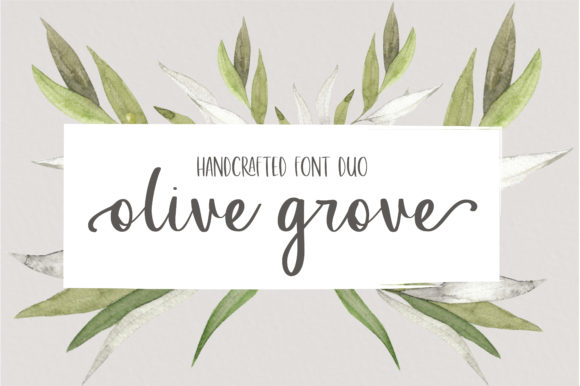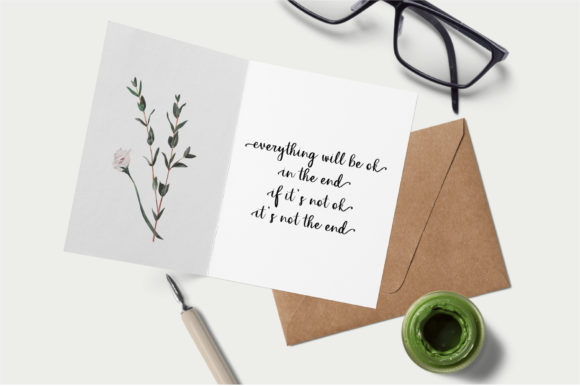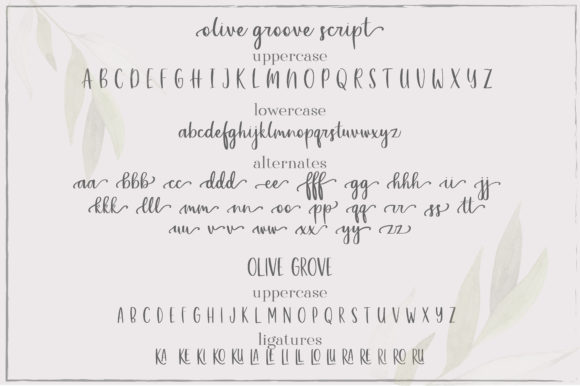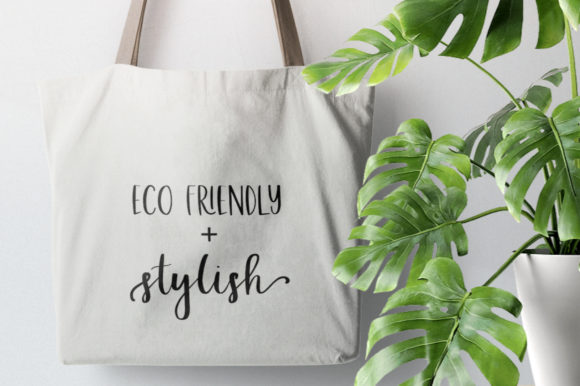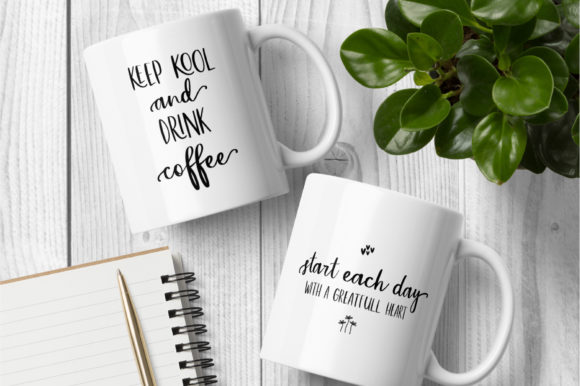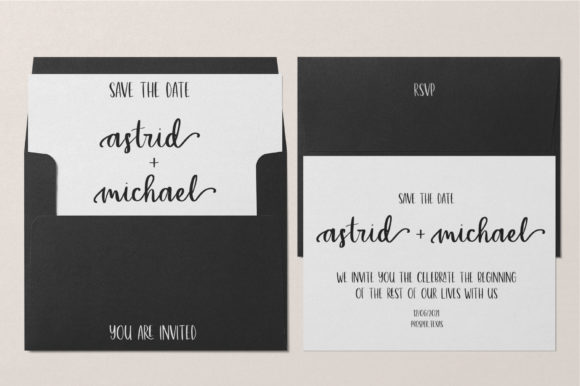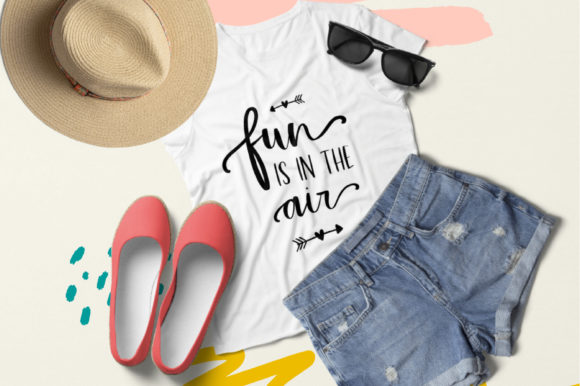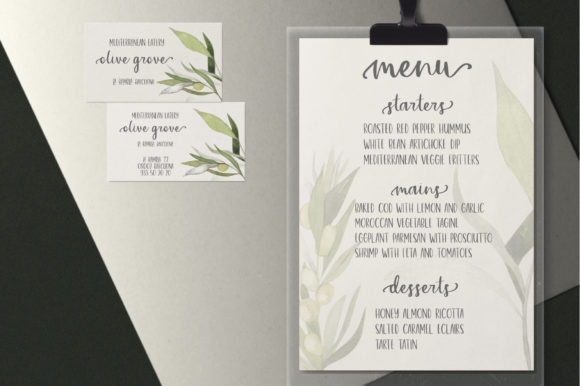
Olive Grove Font
About Olive Grove Font
Olive Grove is a thin and delicate duo font (sans serif and script). It has a classy, elegant and modern look that can be used for logos, branding, invitations, stationery, wedding designs, social media posts, and much more!